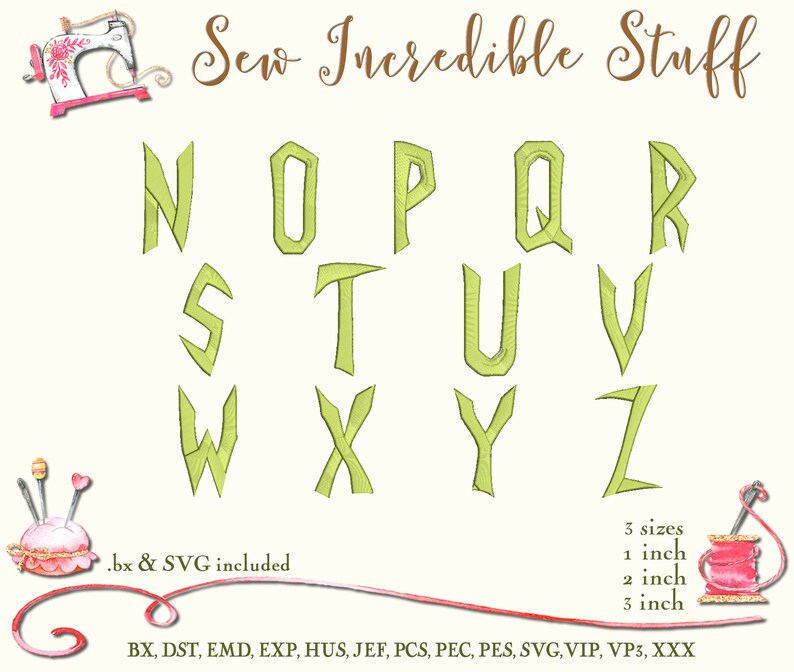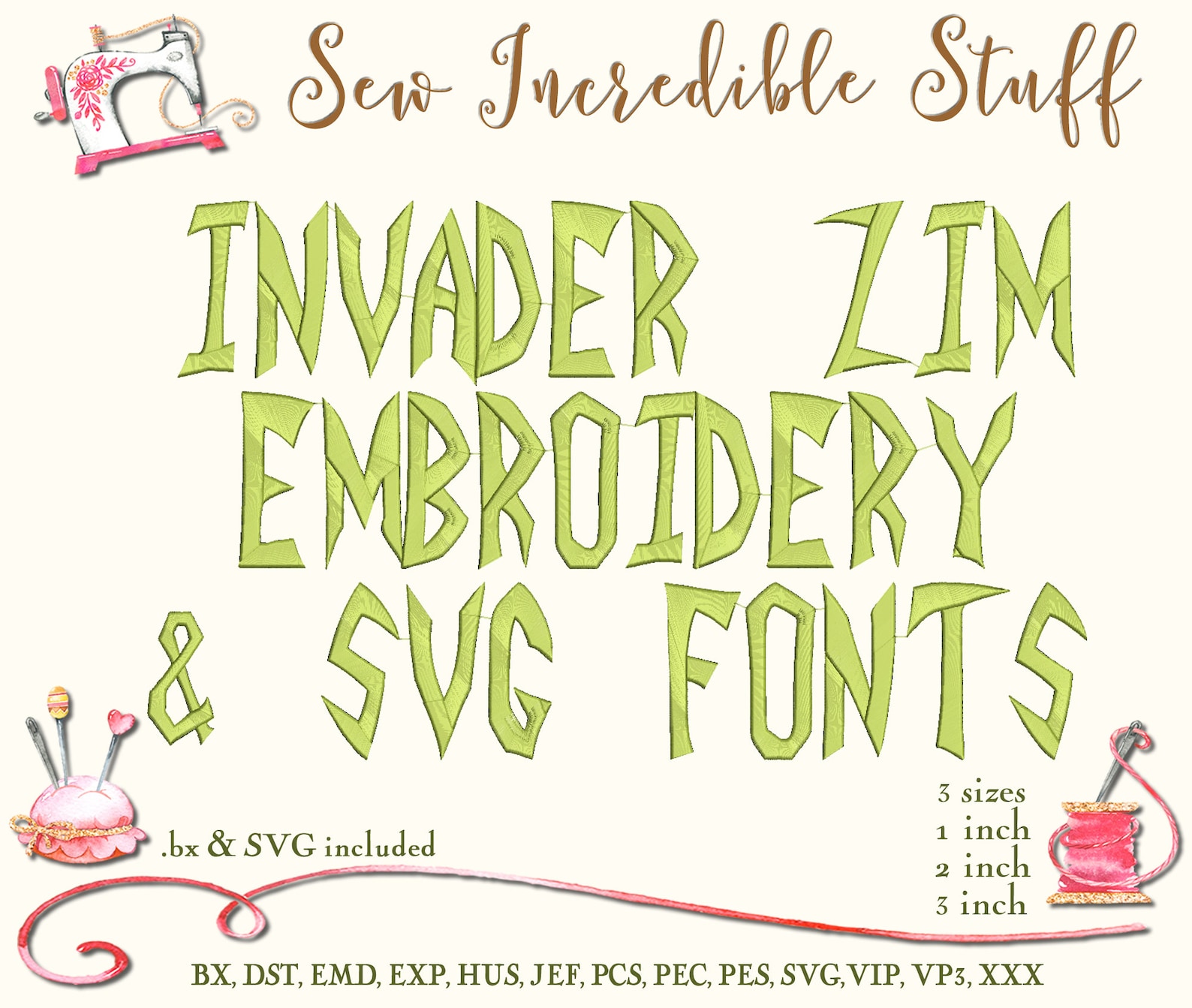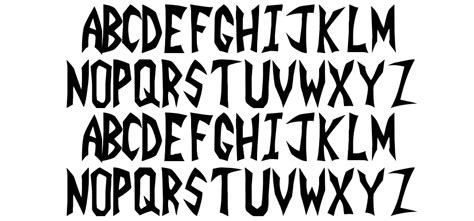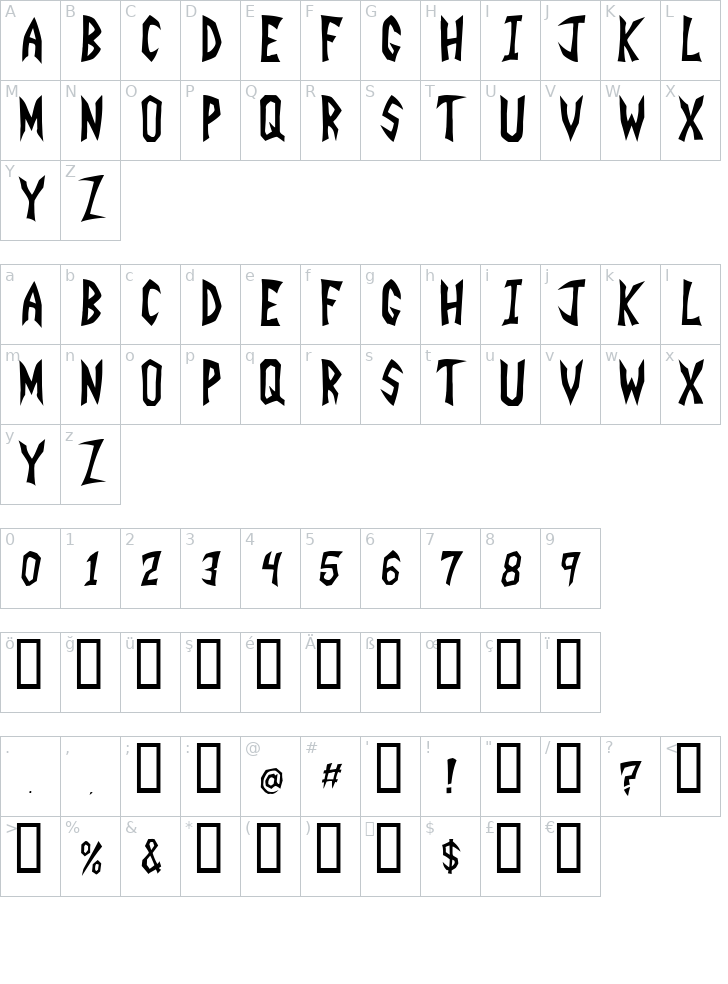
Invader Zim Font . For invader zim, a fantastic creation of jhonen vasquez, it will. Web invader zim font is a horror, fancy typeface which was used in the printing or cartoon projects.
Invader Zim Logo Font
Invader Zim Font - It has one style and supports english and zulu. Web irken font is a alien font and was created on sep 20, 2010. Download free for desktop & webfont. For invader zim, a fantastic creation of jhonen vasquez, it will. Web invader zim font is a horror, fancy typeface which was used in the printing or cartoon projects.
Invader Zim Font - Web download or use online the invader zim font family designed by unknown designer. Web invader zim font is a horror, fancy typeface which was used in the printing or cartoon projects. Download free for desktop & webfont. This cartoon font is so much useful for satisfying the designer. Web invader zim font :
Invader Zim Font - The font has no license. Web download or use online the invader zim font family designed by unknown designer. Web irken font is a alien font and was created on sep 20, 2010. This cartoon font is so much useful for satisfying the designer. Web invader zim font :
Invader Zim Font - Download free for desktop & webfont. Web irken font is a alien font and was created on sep 20, 2010. Web download or use online the invader zim font family designed by unknown designer. For invader zim, a fantastic creation of jhonen vasquez, it will. This cartoon font is so much useful for satisfying the designer.
Invader Zim Font - This cartoon font is so much useful for satisfying the designer. Web download or use online the invader zim font family designed by unknown designer. The font has no license. Uploaded by zemin ๐ (1 style) report a violation add to list. For invader zim, a fantastic creation of jhonen vasquez, it will.
Invader Zim Font - Web invader zim font : Web download the official invader zim font from nickelodeon, a fancy, cartoon font with 78 characters and 50 glyphs. Files (1) ratings & reviews (0) affiliates (0) description: Since then, it has been downloaded 2,903 times and added to 98. Web download or use online the invader zim font family designed by unknown designer.
Invader Zim Font - For invader zim, a fantastic creation of jhonen vasquez, it will. Since then, it has been downloaded 2,903 times and added to 98. Download free for desktop & webfont. This cartoon font is so much useful for satisfying the designer. Web irken font is a alien font and was created on sep 20, 2010.
Invader Zim Font - Files (1) ratings & reviews (0) affiliates (0) description: It has one style and supports english and zulu. For invader zim, a fantastic creation of jhonen vasquez, it will. Uploaded by zemin ๐ (1 style) report a violation add to list. 83,431 downloads (7 yesterday) 1 comment.
Invader Zim Font - Web download or use online the invader zim font family designed by unknown designer. 83,431 downloads (7 yesterday) 1 comment. Web download the official invader zim font from nickelodeon, a fancy, cartoon font with 78 characters and 50 glyphs. Since then, it has been downloaded 2,903 times and added to 98. It has one style and supports english and zulu.
Invader Zim Font - It has one style and supports english and zulu. Web download or use online the invader zim font family designed by unknown designer. Web download the official invader zim font from nickelodeon, a fancy, cartoon font with 78 characters and 50 glyphs. Uploaded by zemin ๐ (1 style) report a violation add to list. For invader zim, a fantastic creation.